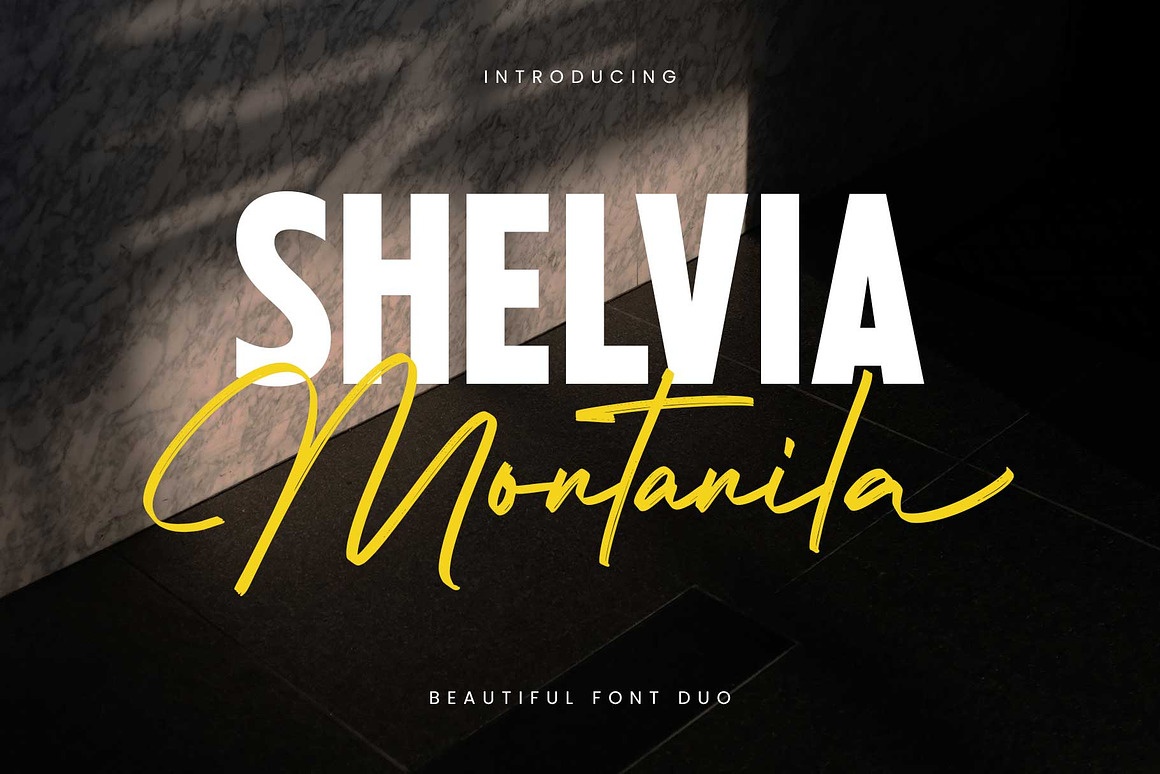
Shelvia Montanila Font
About Shelvia Montanila
Meet Shelvia Montanila, a beautiful font duo where bold clarity meets expressive elegance. This pairing blends a strong, modern sans serif with a fluid signature script—creating a perfect balance between structure and personality.